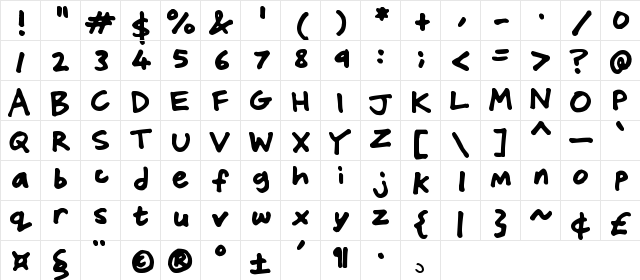
Friendly Felt Tips Regular
Design Context for Friendly Felt Tips Typeface
Friendly Felt Tips takes a measured approach to typography — its balanced proportions and neutral character make it a reliable workhorse for both digital and print work.